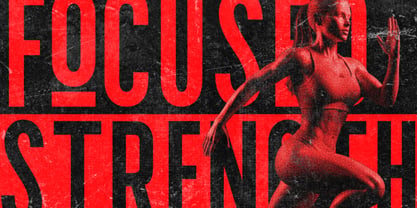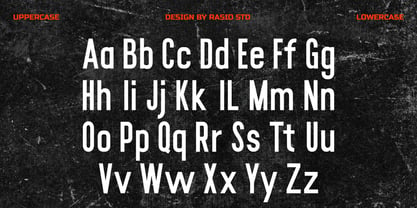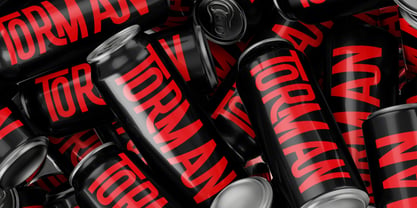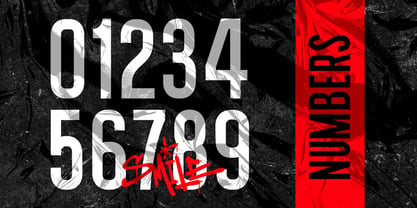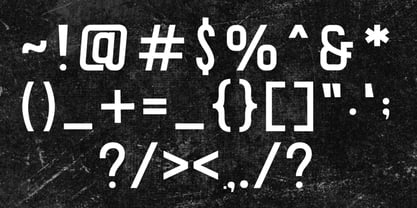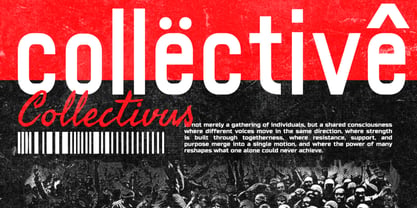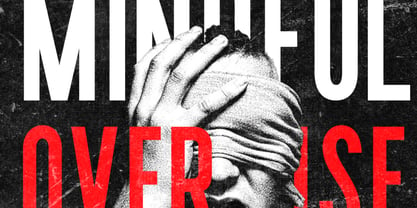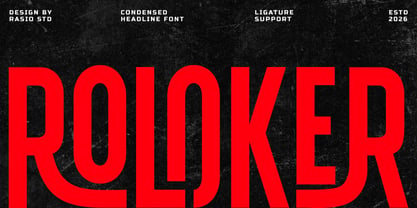
Roloker
von Rasio Studio
Die Schriftfamilie Roloker wurde von Fajar Indra entworfen und von Rasio Studio veröffentlicht. Roloker enthält 1 Stile. Mehr über diese Familie
Roloker is a bold condensed sans serif font designed for strong visual impact and confident typography. The font features tall proportions, solid stroke construction, and clean geometric forms that emphasize power and clarity in every character. Roloker is designed for projects that require strong presence and visual authority, making it effective for branding systems, editorial headlines, posters, advertising layouts, album covers, product packaging, and modern marketing visuals where bold condensed typography is essential.
Designer: Fajar Indra
Foundry: Rasio Studio